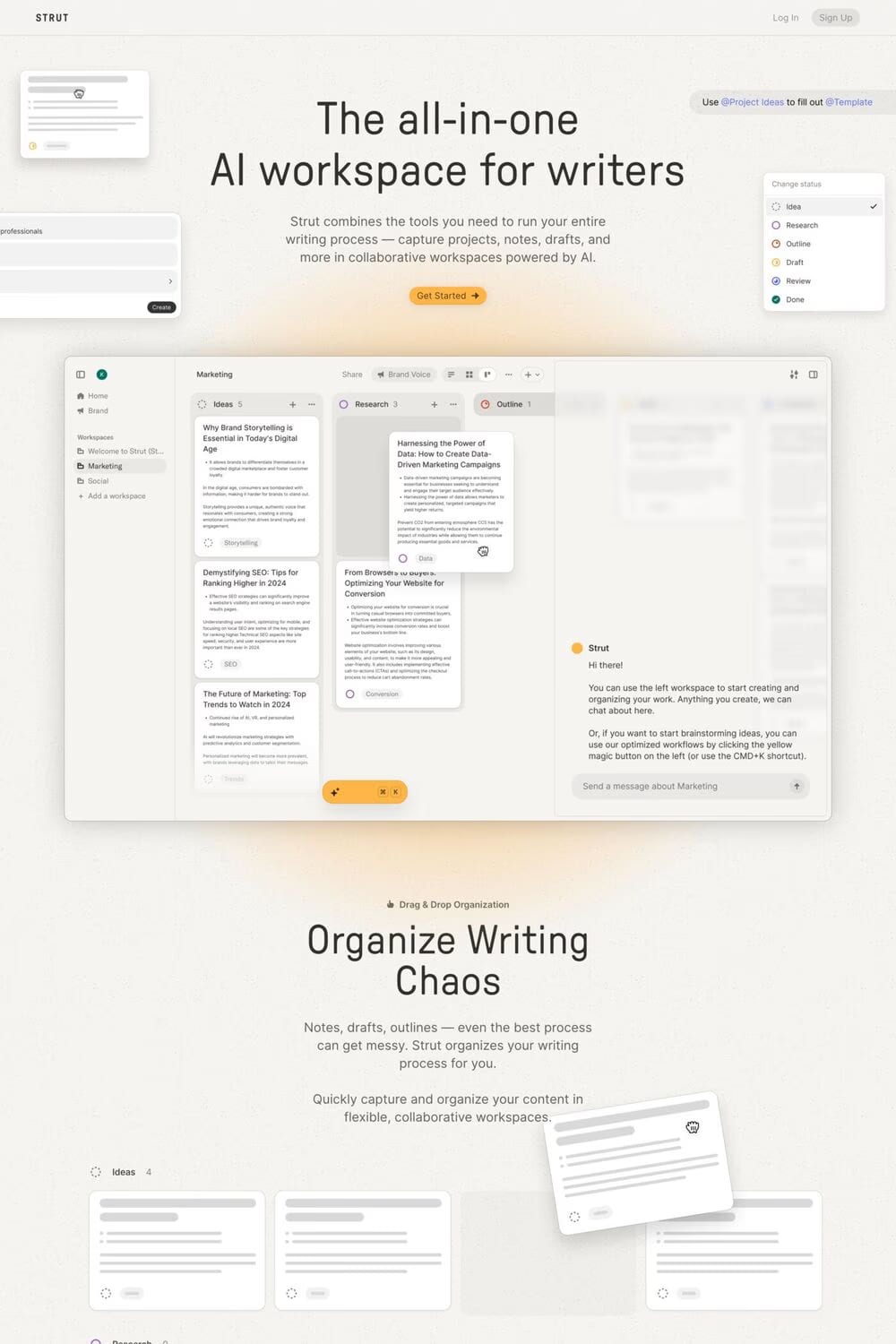
GT Pressura is a sans-serif typeface from Grilli Type.
GT Pressura is inspired by metal type printing history as well as engineered letters stamped onto shipping boxes. It uses the visual gesture of ink spreading under pressure as a stylistic device, offering an alternative to more spindly typefaces of the digital age.